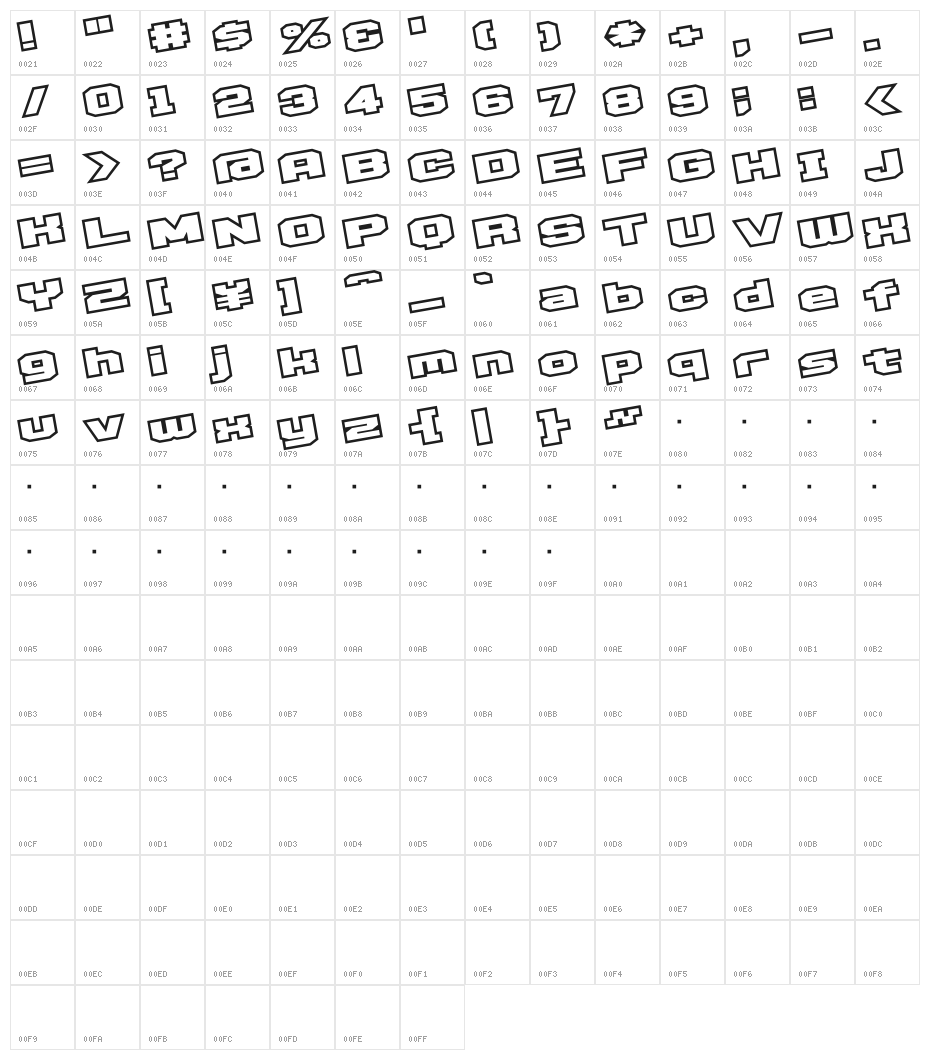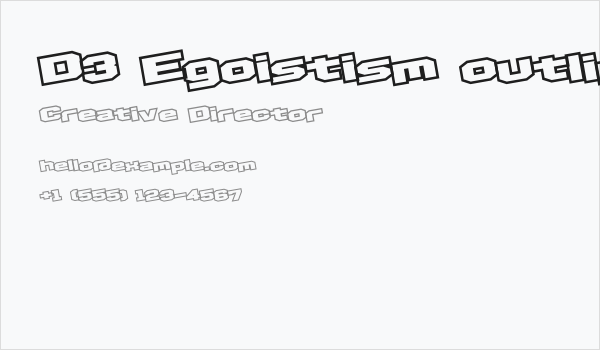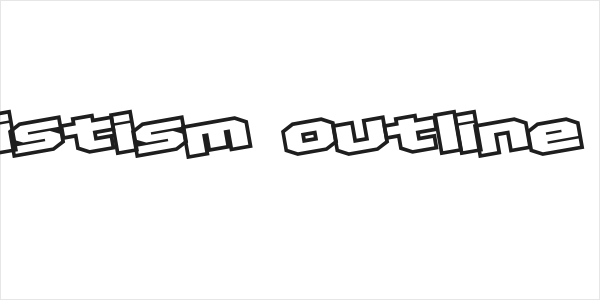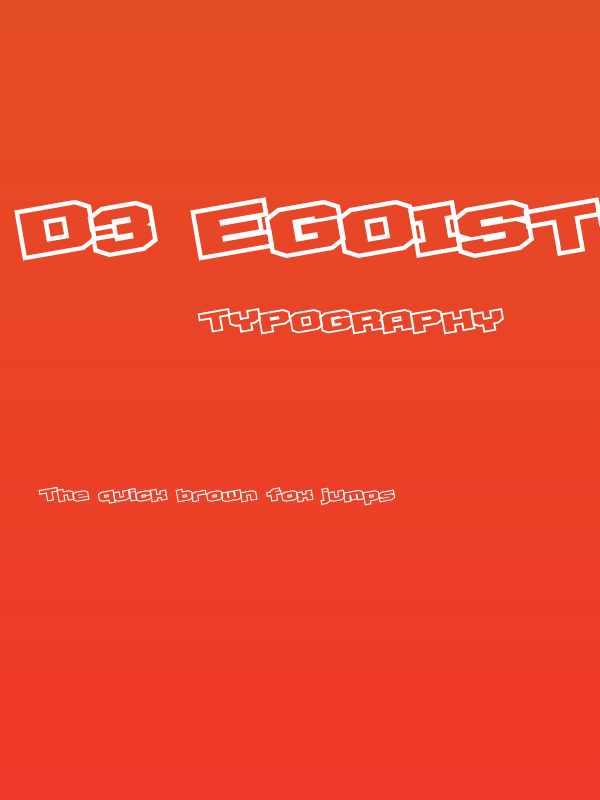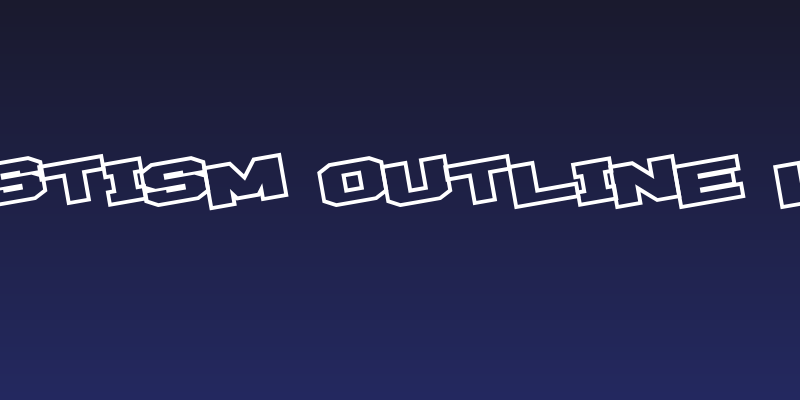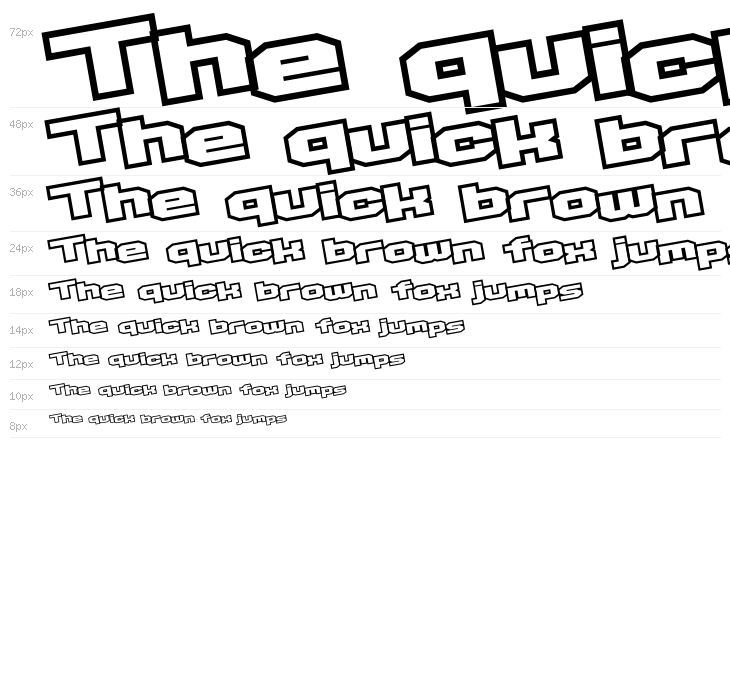
D3 Egoistism outline leaning Font
D3 Egoistism outline leaning Description
This font features a bold, outlined style with a distinct leaning effect, giving it a dynamic and edgy appearance. The characters are uppercase and lowercase alphabets, numerals, and a variety of special symbols. Each letter is outlined, creating a three-dimensional effect that stands out. The font has a playful yet structured design, making it suitable for eye-catching displays. The geometric shapes and sharp angles contribute to its modern and futuristic feel, while the consistent thickness of the outlines provides a sense of uniformity and balance.
| Proposed Projects | Ideal for posters, video game graphics, branding, and any project needing a bold, standout typeface. |